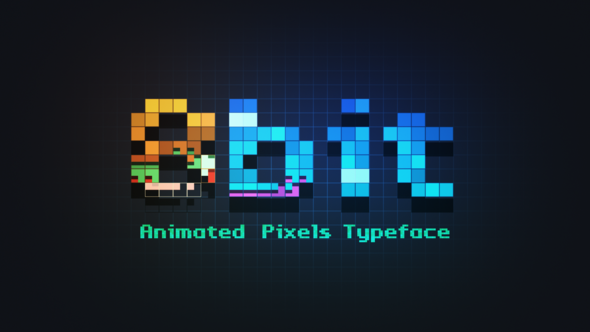
Pixels - Animated Typeface
Pixels is an animated typeface in the style of a pixelated font.Excellent choice for title and logo designs.
- Full English alphabet from A – Z
- Numbers from 0 – 9
- Extra characters + – = : . ! ? / < >
- Customize pixel shape and animation path.
- Colors and effects supported.